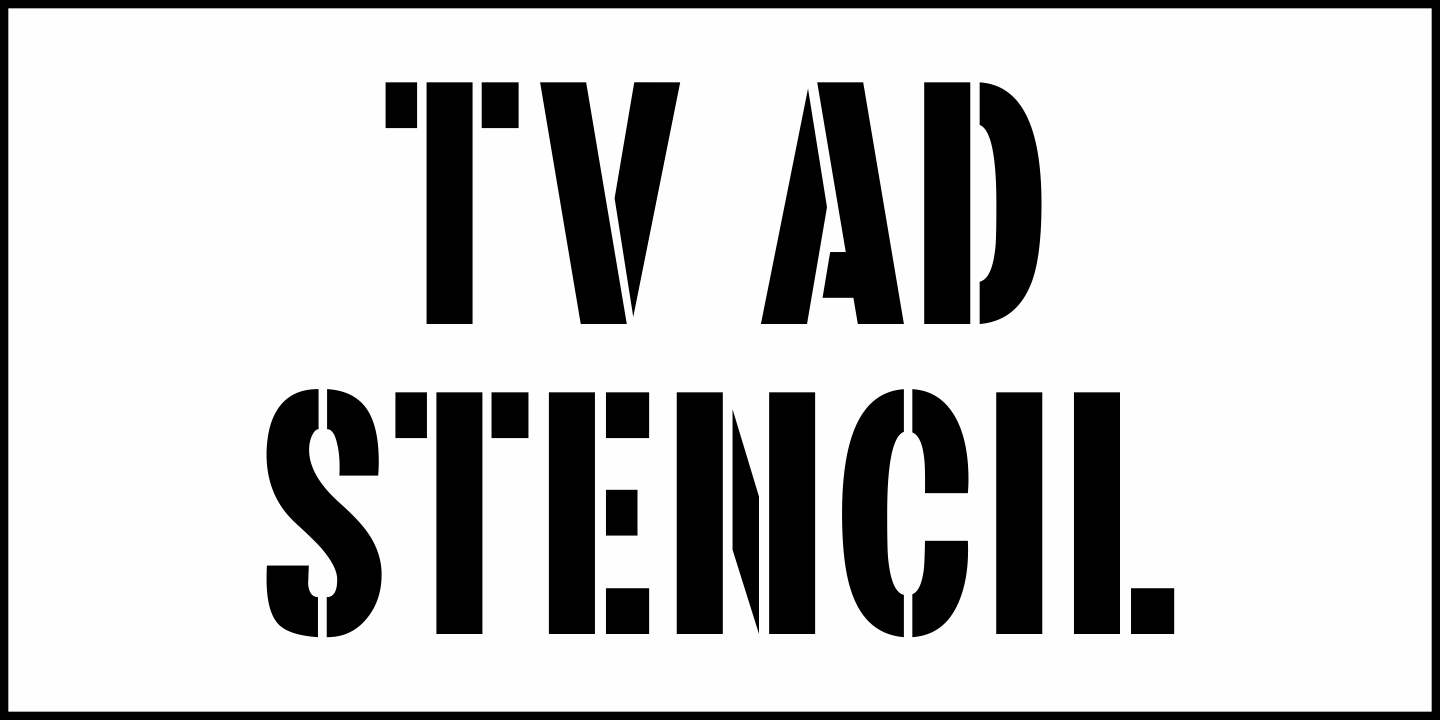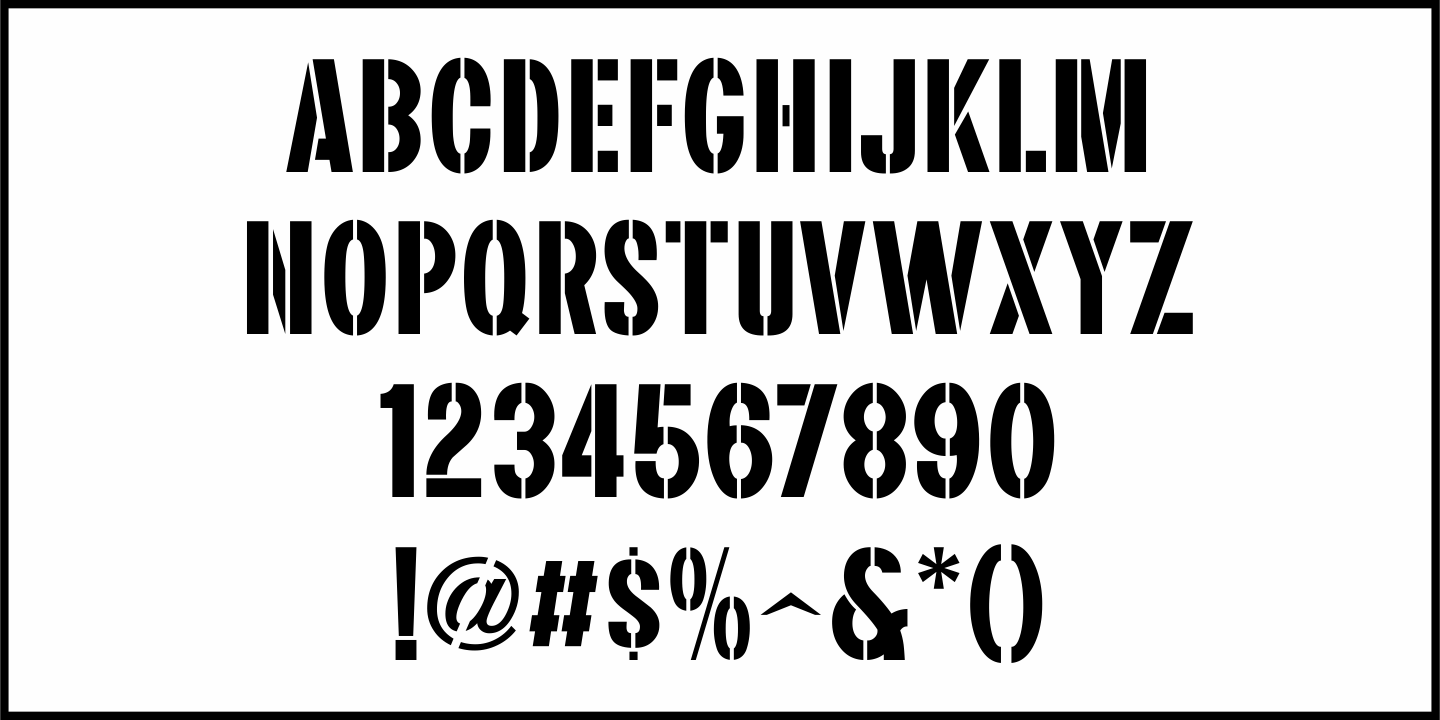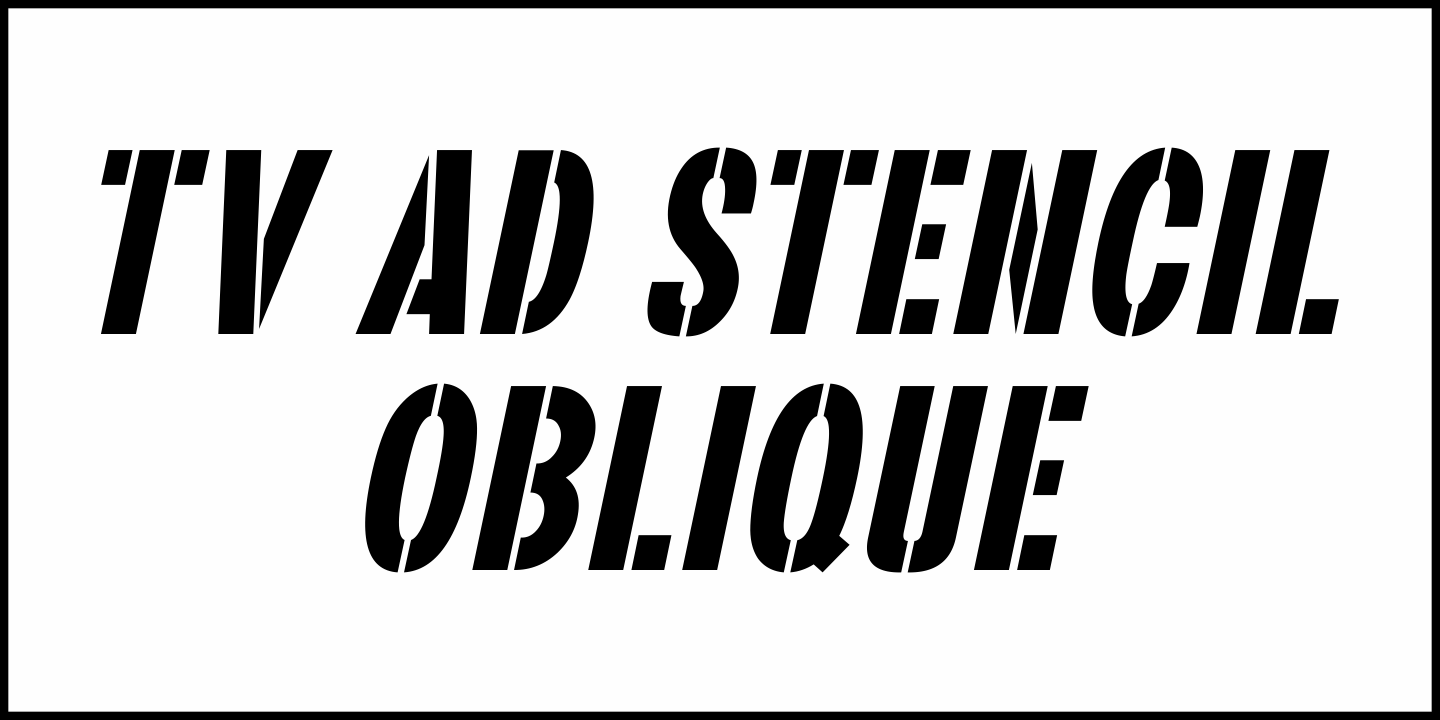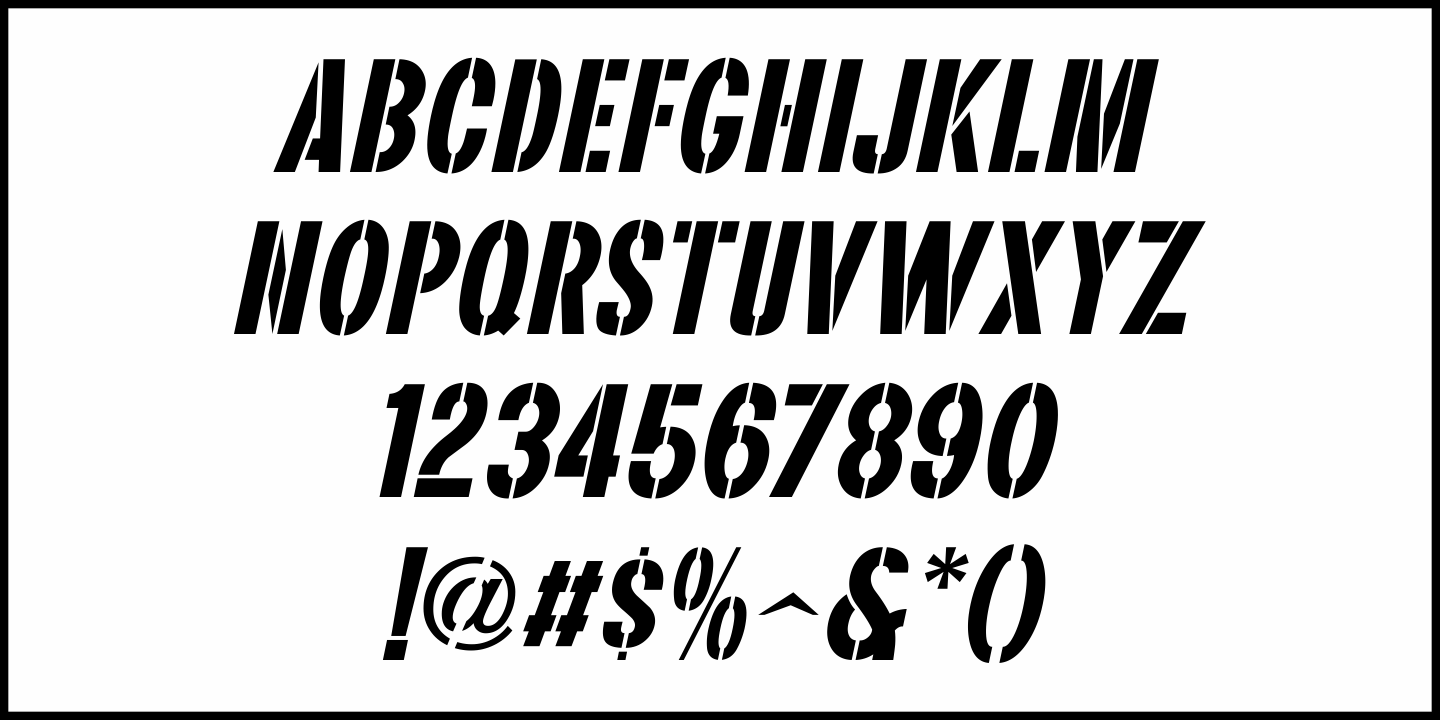
TV Ad Stencil
In the January 19, 1953 issue of Broadcasting Telecasting Magazine was an ad for KOPO-TV in Tucson, Arizona.  The main ad copy was done in a bold sans serif stencil type that's now available digitally as TV Ad Stencil JNL in both regular and oblique versions.